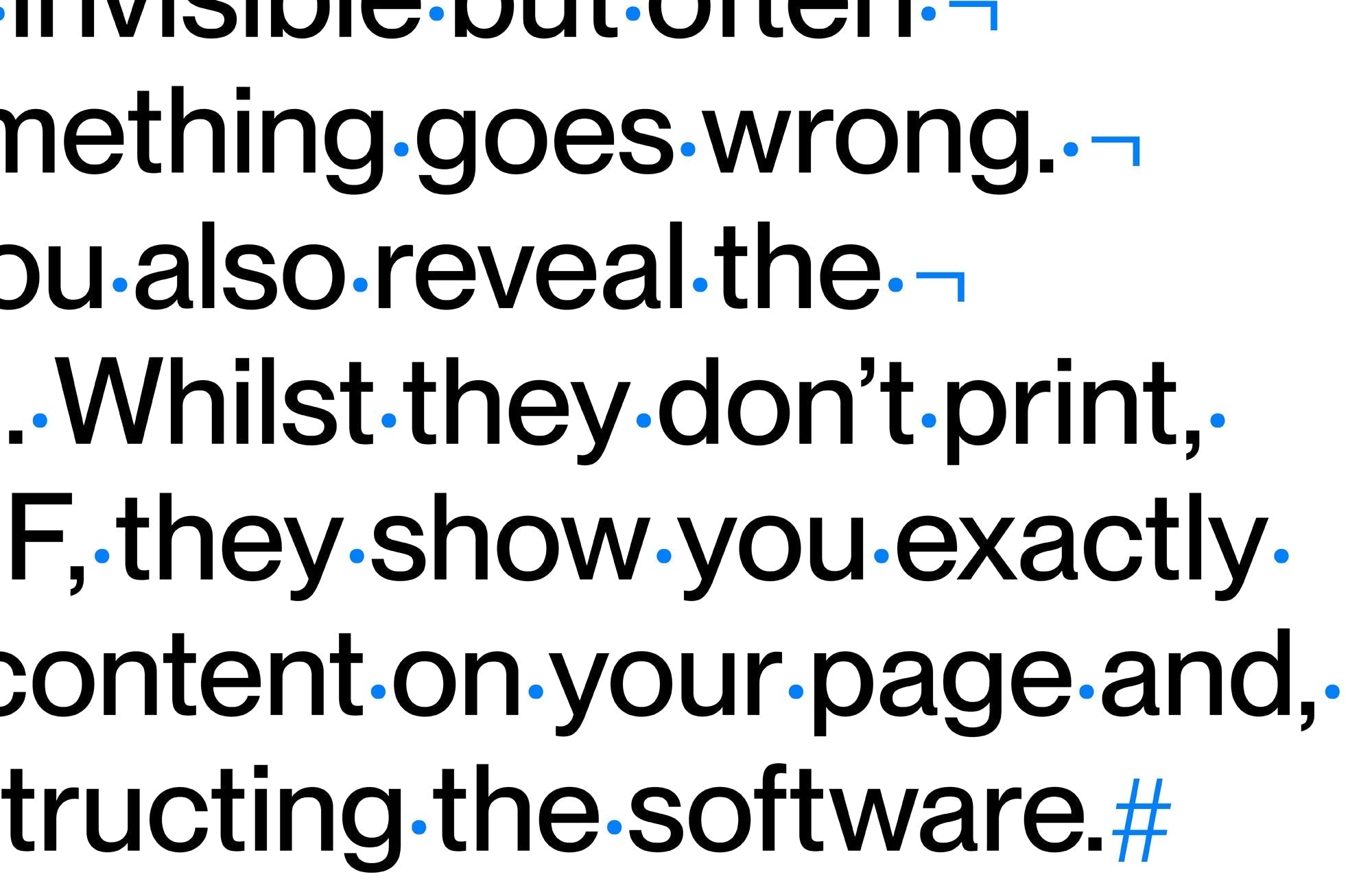
What you’ve done is turn on one of the *over-priced* software’s most useful features: hidden characters.
The backstage crew, if you will, is invisible but often invaluable, especially if/when something goes wrong. In revealing hidden characters, you also reveal the structural framework of your text. Whilst they don’t print, export, or appear in your final PDF, they show you exactly how InDesign is interpreting the content on your page and, vice versa, how the content is instructing the software.
The most common (and distinctive) glyph is the paragraph mark, or Pilcrow, (¶), which is the container for paragraph-level formatting and appears every time you press Return. Alignment, spacing before and after, indents, rules, and paragraph styles are all attached to this invisible endpoint. Delete a paragraph mark, and you’re both removing a line break and, potentially, getting rid of a chunk of formatting infrastructure too. Equally common and found between words, InDesign displays spaces as small centred dots (·). These reveal whether text contains single spaces, multiple spaces, or inconsistent spacing.
Tabs appear as right-pointing double angle quotation marks (»). Every tab character acts as a placeholder that jumps to the next tab stop. Unlike spaces, tabs are dynamic, meaning they can be changed in the tab settings and the text automatically repositions itself. This makes them particularly useful for lists, menus, contents pages and any layout requiring consistent alignment. They can also explain why some of your text is sitting funny… because there was a tab there the whole time.
Line breaks, created with Shift + Return, appear as bent arrows (↵). They force text onto a new line without creating a new paragraph, so the line remains attached to the paragraph above, inheriting its formatting and spacing rules. Crucial for proper typesetting.
What makes hidden characters so useful is that they expose the logic behind both your layout and InDesign itself. Every dot (·), arrow (»), line break (↵) and paragraph mark (¶) marks a decision about how text behaves and looks, revealing the distinction between content and formatting. All of these common hidden characters are strong instructions that tell text (and you, as the designer) exactly what text is doing and where it’s flowing. Rather than relying on trial and error, these characters explicitly direct InDesign’s text engine, helping maintain consistency when layouts evolve. Most of the time, you’ll switch them on to solve a problem. But the longer you work in InDesign, the more they become a way of reading a document’s architecture.